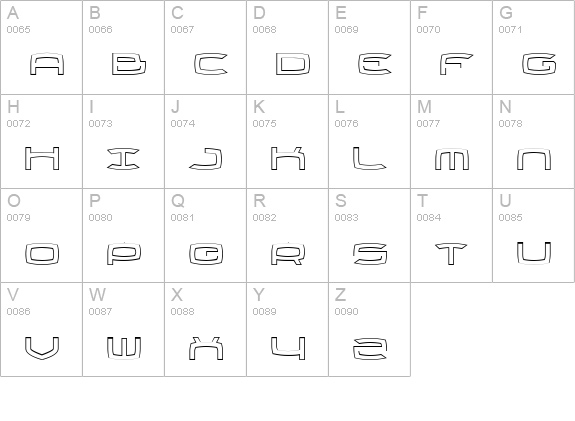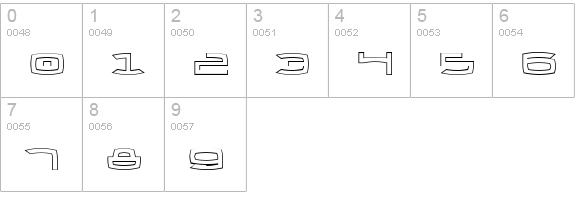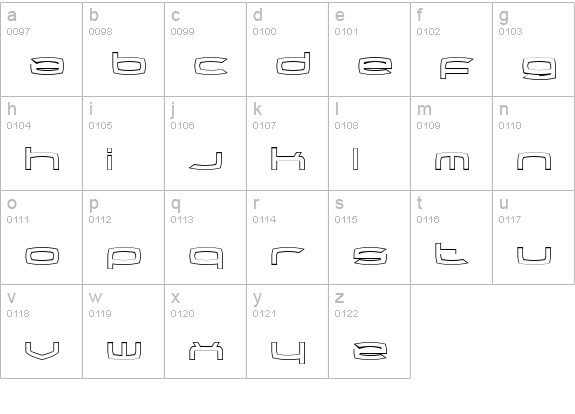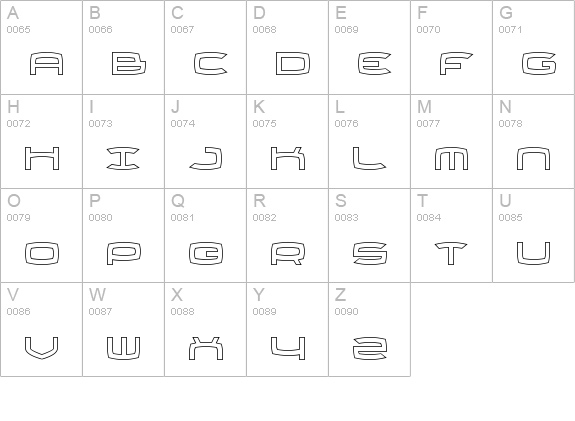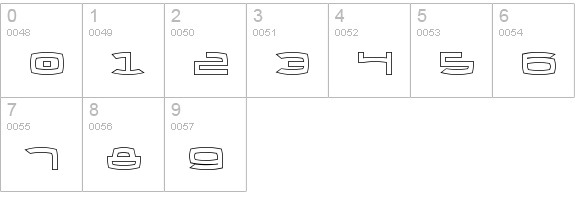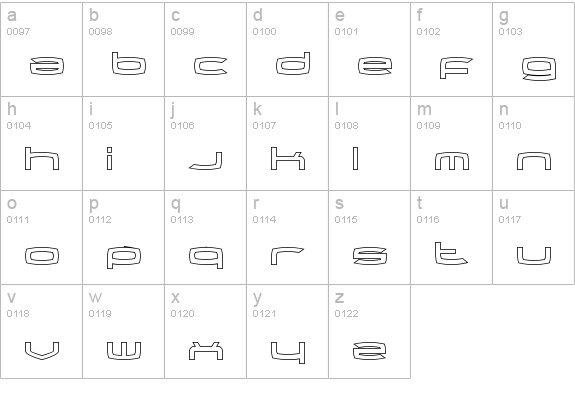
Introducing Thundergod Outline, a powerful and captivating font that will electrify your designs. With its bold and striking appearance, Thundergod Outline is sure to make a thunderous impact on any project. This font exudes an aura of strength and authority, perfect for conveying a sense of power and dominance. Its sharp edges and defined outlines give it an edgy and modern look, making it ideal for various design purposes such as logos, headlines, posters, and more. Thundergod Outline is designed with meticulous attention to detail, ensuring that each character is crafted with precision and finesse. The clean lines and distinct features of this font make it highly legible, even at smaller sizes. But the best part? Thundergod Outline is absolutely free! You can easily download this font from FontsMarket.com, a trusted source for high-quality fonts. Whether you're a professional designer or simply a typography enthusiast, Thundergod Outline is a must-have addition to your font collection. So why wait? Unleash the power of Thundergod Outline and add a touch of electrifying energy to your designs. Download it for free today at FontsMarket.com and let your creativity thunder through every project!